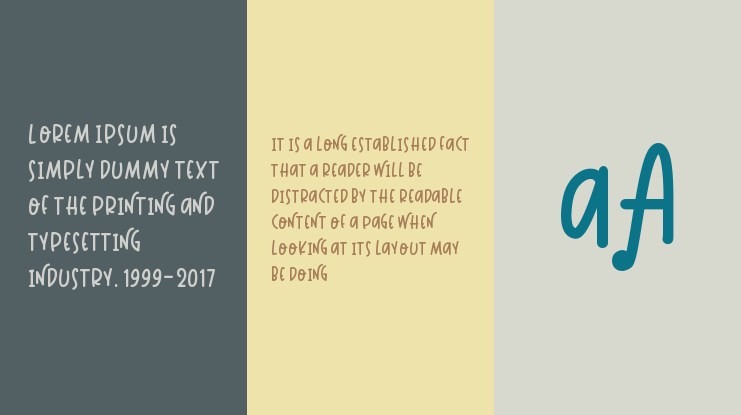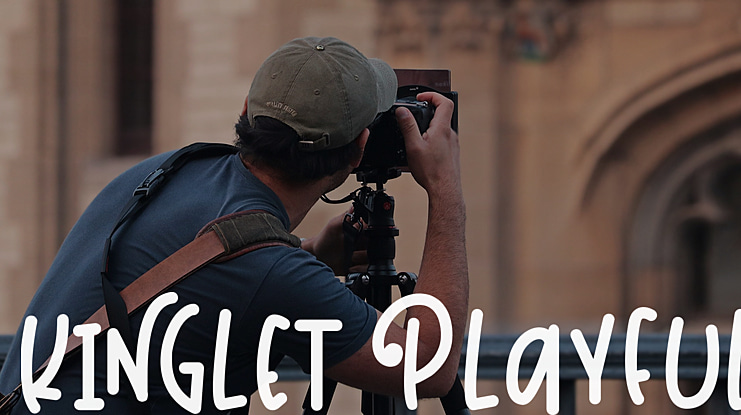
Kinglet Playful Font
Say Hello ... to Newcomers Kinglet/ Cute Font Duo With Extras
hi introduce two cute and playful fonts made with handwriting that can meet your design needs with funny and cheerful themes You can use it in your various designs, clothes, logos, posters, invitations, crafts, and more